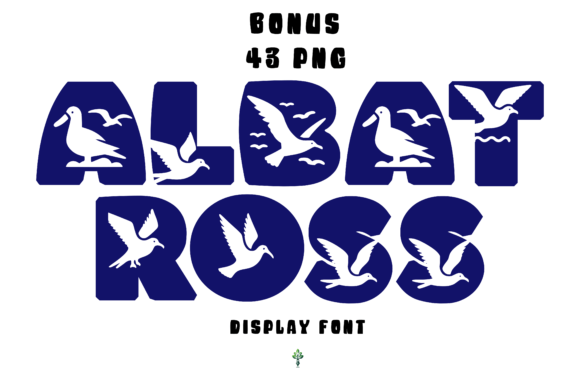
Unleashing the Power of the Albatross Font
Have you ever sat in front of a blank canvas, feeling the weight of an idea waiting to be brought to life? That’s where the magic of typography begins. As creatives, we’re constantly searching for the perfect tool to help us convey our vision to the world. For designers and typographers, the Albatross Font is a game-changer – a masterfully crafted typeface that embodies the essence of creative freedom.
This stunning font is more than just a set of letters; it’s a statement piece that adds an air of sophistication and elegance to any project. Whether you’re working on a branding campaign, designing a website, or crafting a book, the Albatross Font is the perfect companion to help you express your unique voice.
Albatross Font Key Features
- Font Family: Albatross, Albatross Bold, Albatross Italic, Albatross Bold Italic
- Unique Characteristics: Distinctive, elegant, and refined design; perfect for use in high-end publications, advertising, and luxury branding
Designer Review: Albatross Font
I recently had the chance to work with the Albatross Font, and I must say, it’s a mixed bag. Let’s start with what works well ✨
- The Albatross Font has a unique, elegant feel to it. It’s perfect for projects that need a touch of sophistication.
- The font is highly customizable, making it easy to adjust to fit your specific design needs.
- The Albatross Font has a wide range of weights and styles, allowing you to create a cohesive look across your project.
However, there are some limitations to consider ⚠️
- The Albatross Font can be quite difficult to read in certain contexts, particularly in smaller sizes or with low-contrast backgrounds.
- The font’s unique feel can sometimes feel overly ornate or even kitschy, which may not be suitable for every project.
- The Albatross Font may require some additional styling or formatting to ensure it looks its best in different applications.
Overall, I’d say the Albatross Font is a solid choice for designers who want to add a touch of elegance to their projects. However, it may not be the best fit for every project, and some additional styling or formatting may be necessary to get the most out of it.
Getting the Most Out of Albatross Font
For best results, use Albatross font in conjunction with bold or italic styles to create a striking visual effect. You can also experiment with different font sizes to create a sense of hierarchy in your design.
Albatross font is ideal for:
- Creating eye-catching headlines and titles.
- Adding a touch of elegance to formal documents and presentations.
- Designing modern and minimalist branding materials.